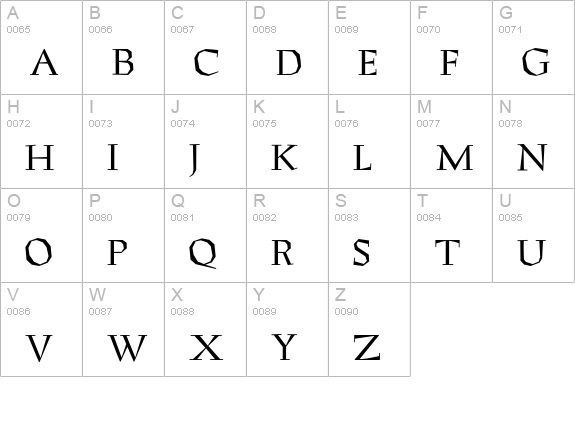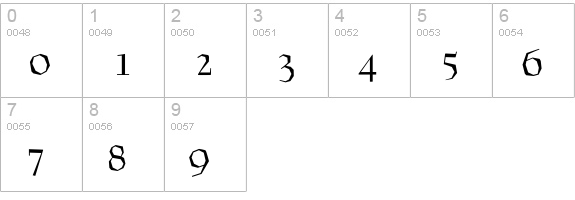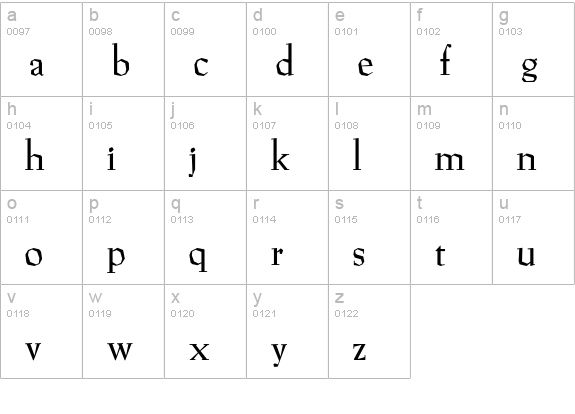
P22Preissig-Roman Font Details
P22Preissig-Roman font is a timeless and elegant typeface that embodies a perfect blend of classic and modern elements. With its graceful curves and strong, confident strokes, this font exudes a sense of sophistication and refinement. Designed by the legendary Czech typographer and artist Vojtěch Preissig in the early 20th century, P22Preissig-Roman font captures the essence of the Art Nouveau movement, with its ornate details and delicate serifs. The intricate letterforms are meticulously crafted, creating a harmonious balance between legibility and artistic expression. What sets P22Preissig-Roman font apart is its versatility. Whether used for headlines, body text, or even in logo designs, this font has the ability to adapt to any design project. Its timeless appeal makes it suitable for a wide range of creative applications, from branding and packaging to editorial design and advertising. One of the best features of P22Preissig-Roman font is that it is available for free download at FontsMarket.com. This means that designers and typographers can enjoy the beauty and elegance of this font without any financial constraints. It is a true gift to the design community, allowing for endless creative possibilities. With its rich history and exquisite craftsmanship, P22Preissig-Roman font is a must-have for any designer or typographer looking to add a touch of sophistication and elegance to their projects. Its freely available download at FontsMarket.com makes it accessible to all, ensuring that this timeless typeface can be enjoyed by designers around the world.